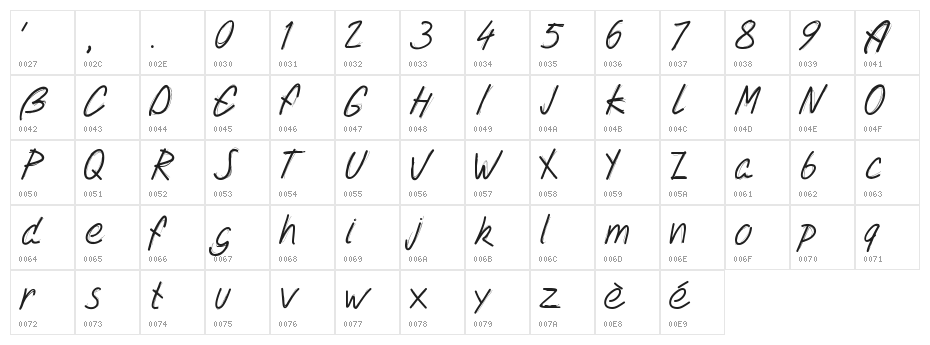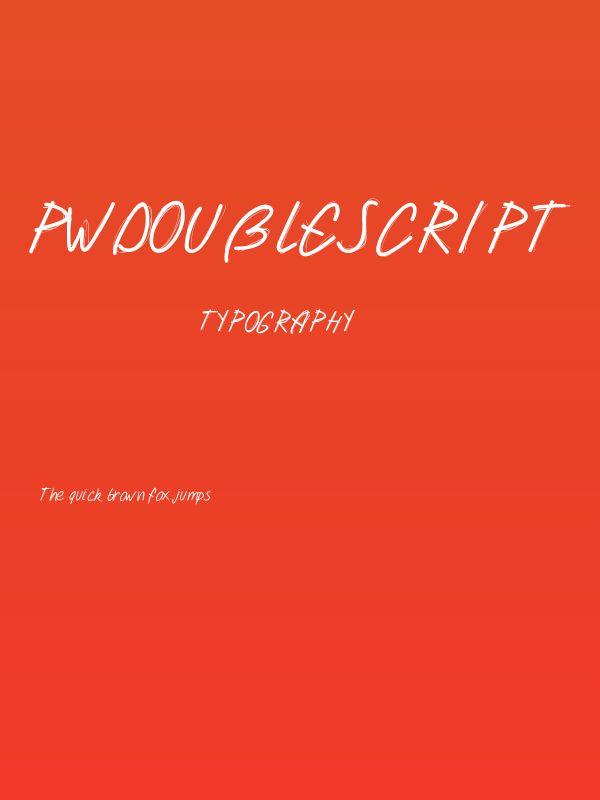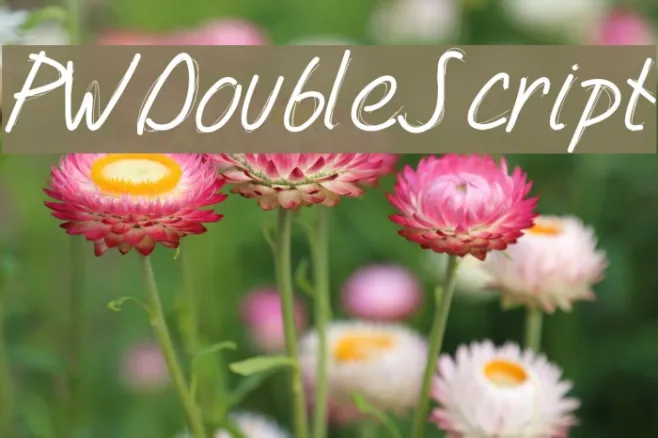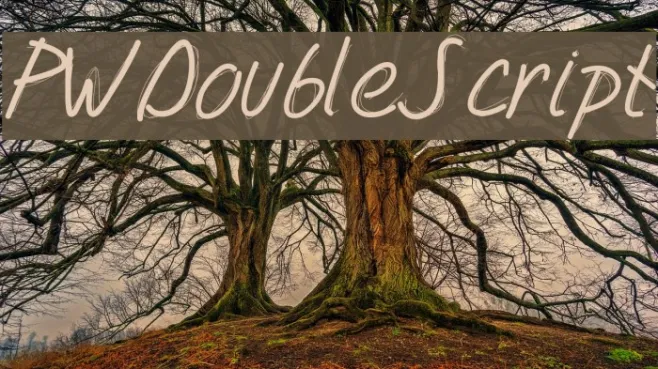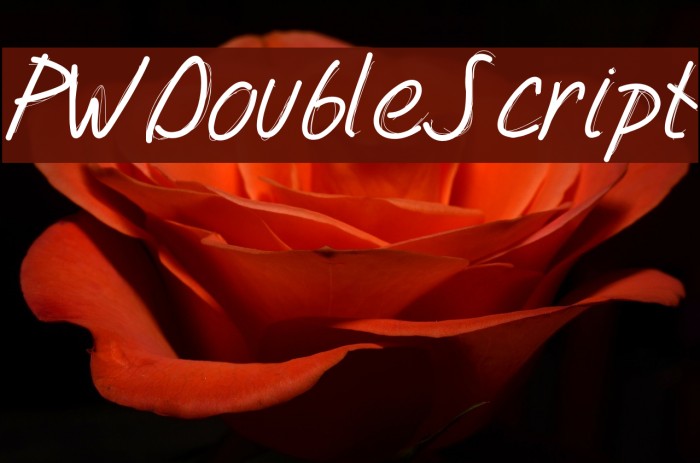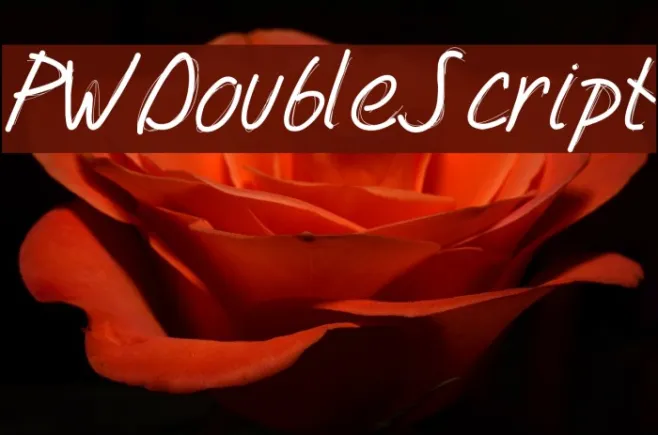
PWDoubleScript Font
PWDoubleScript Description
This font features a dynamic and expressive script style, characterized by fluid strokes and a handwritten appearance. The uppercase letters are bold and slightly slanted, giving a sense of movement and energy. The lowercase letters maintain a consistent flow, with some letters extending below the baseline, adding to the casual and artistic feel. The numerals are clear and legible, matching the overall style with their slightly cursive form. The special characters are designed to blend seamlessly with the letters, maintaining the same energetic and informal vibe. This font is perfect for projects that require a personal touch or a creative flair.